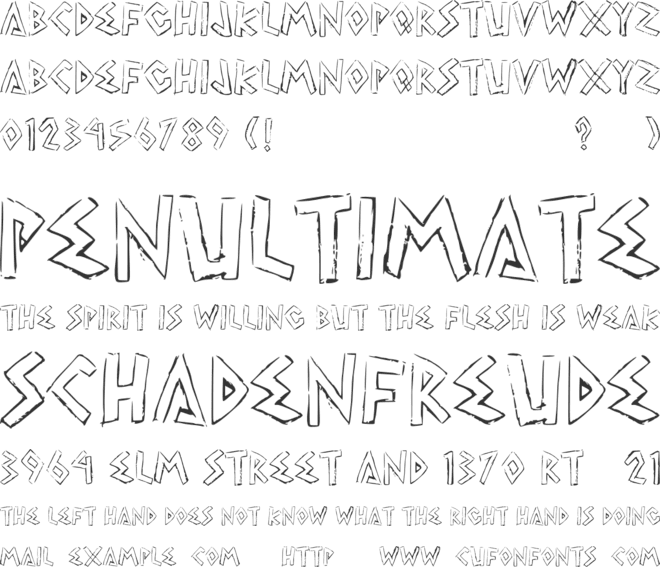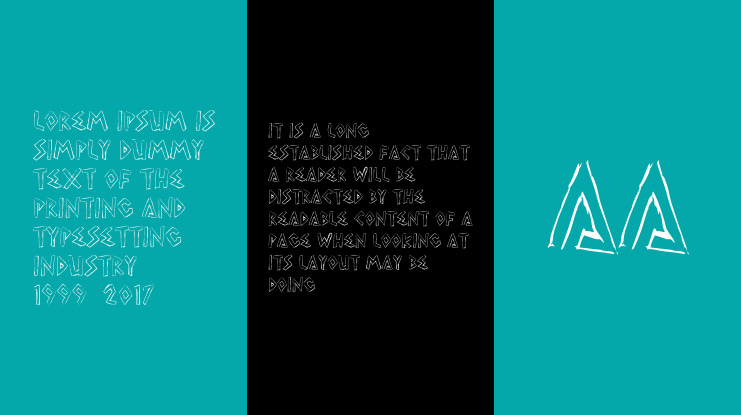
FT Chaoskript Font
Forged in Chaos, Built for Distortion
FT Chaoskript is a raw, aggressive display typeface designed by Firstype Studio © 2026. Inspired by the raw energy of underground metal culture and chaotic ritual aesthetics, this font delivers a brutal and unapologetic character to any dark-themed project.
Whether you are designing for the "Necro Void" or creating a "Distorted" visual masterpiece, FT Chaoskript provides the sharp, jagged edges needed to stand out.
What's Included in this Version:
Uppercase Letters with a heavy metal edge.
Numbers & Basic Punctuations.
Stressed Gothic Aesthetics perfect for posters and dark art.
Perfect for:
Band Logos & Music Posters.
Personal Underground Projects.
Social Media Graphics with a Gothic Vibe.